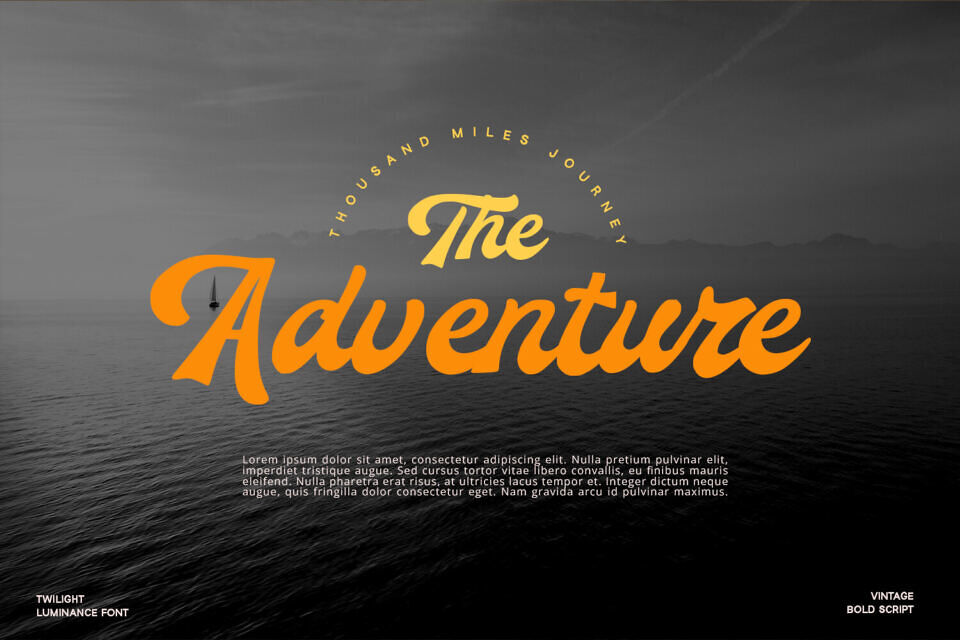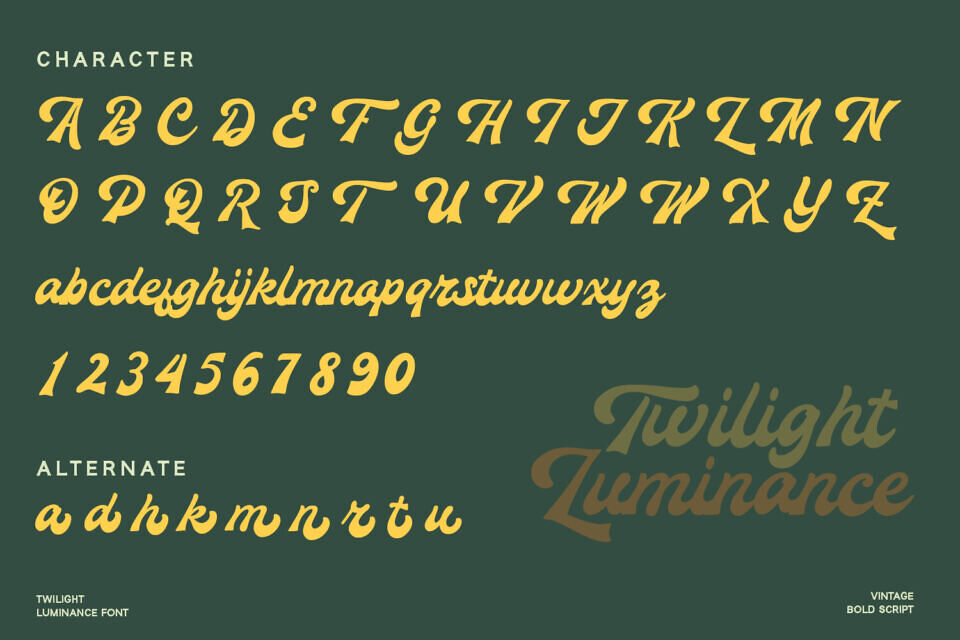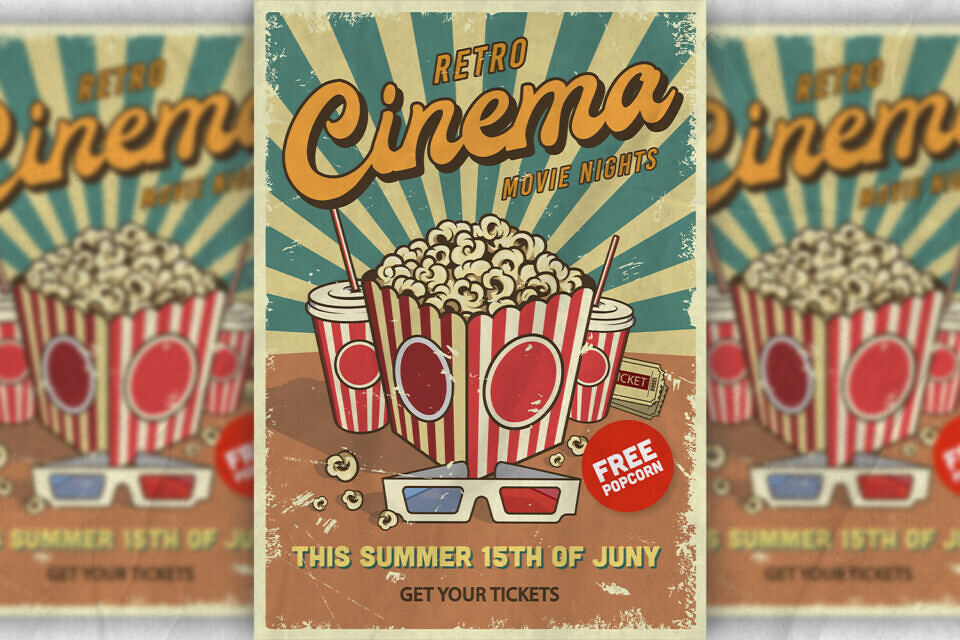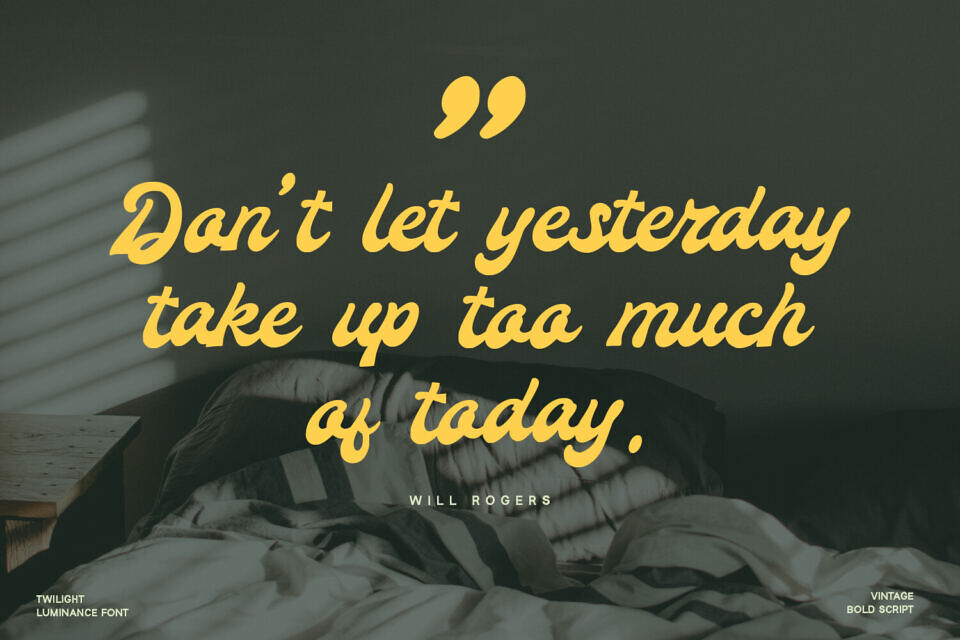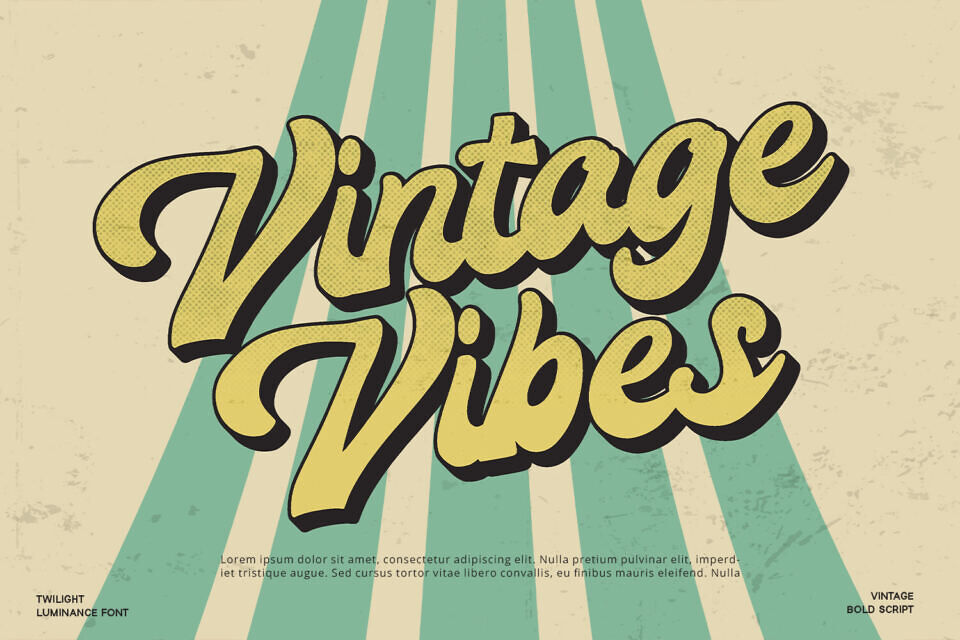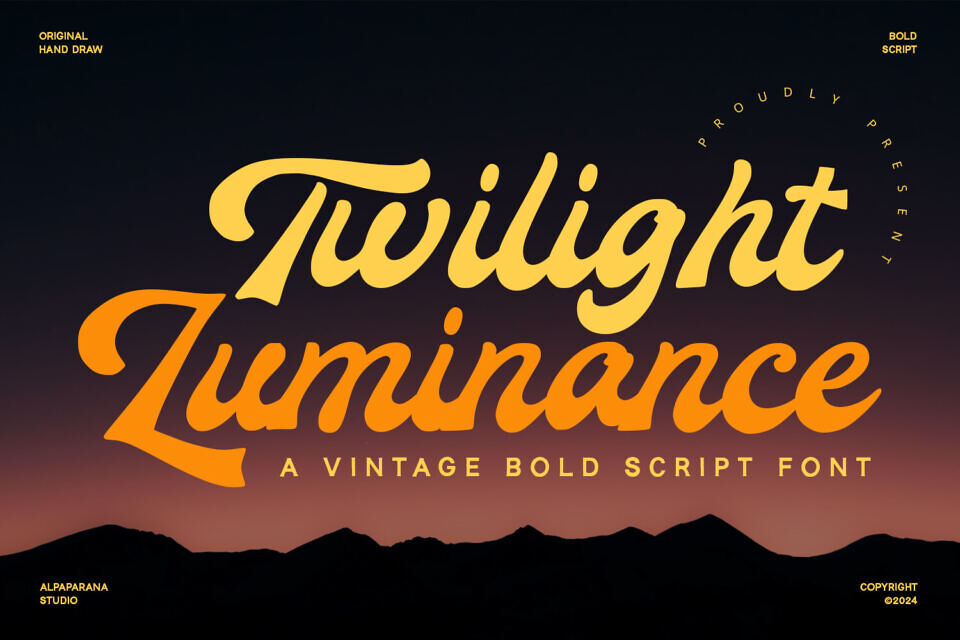
Twilight Luminance is a charming vintage handwritten script font that evokes nostalgia and warmth. Its elegant curves and gentle strokes exude a sense of timeless beauty and sophistication. Perfect for invitations, branding, and vintage-themed designs, Twilight Luminance adds a touch of grace and refinement to any project, captivating audiences with its allure.